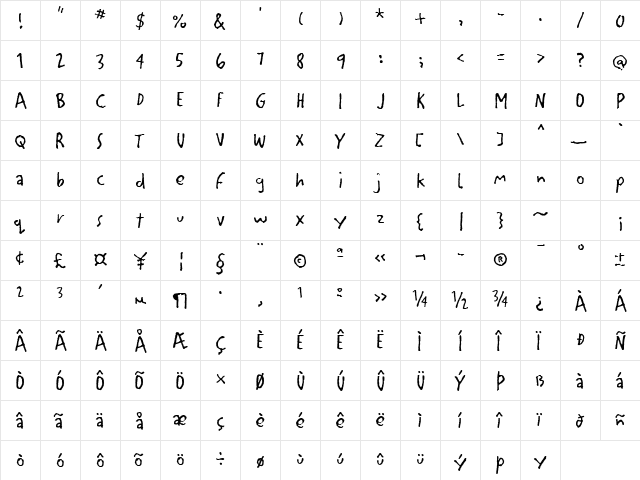
Litterbox ICG Regular
Design Context for Litterbox ICG Typeface
Litterbox ICG is a composed and adaptable typeface that performs quietly and consistently across a wide range of design contexts.